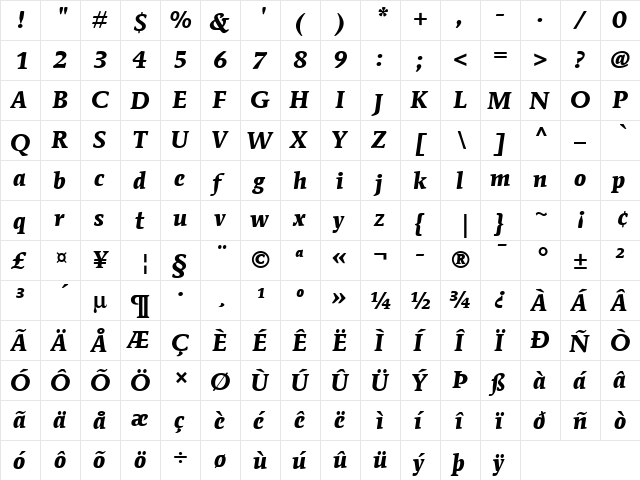
ITCMendozaRoman LT Book Bold Italic Font Preview
Design Context for ITCMendozaRoman LT Book Typeface
ITCMendozaRoman LT Book takes a measured approach to typography — its balanced proportions and neutral character make it a reliable workhorse for both digital and print work. Its italic angle brings a sense of urgency and motion to the letterforms. The heavy weight commands attention and anchors typographic hierarchies.